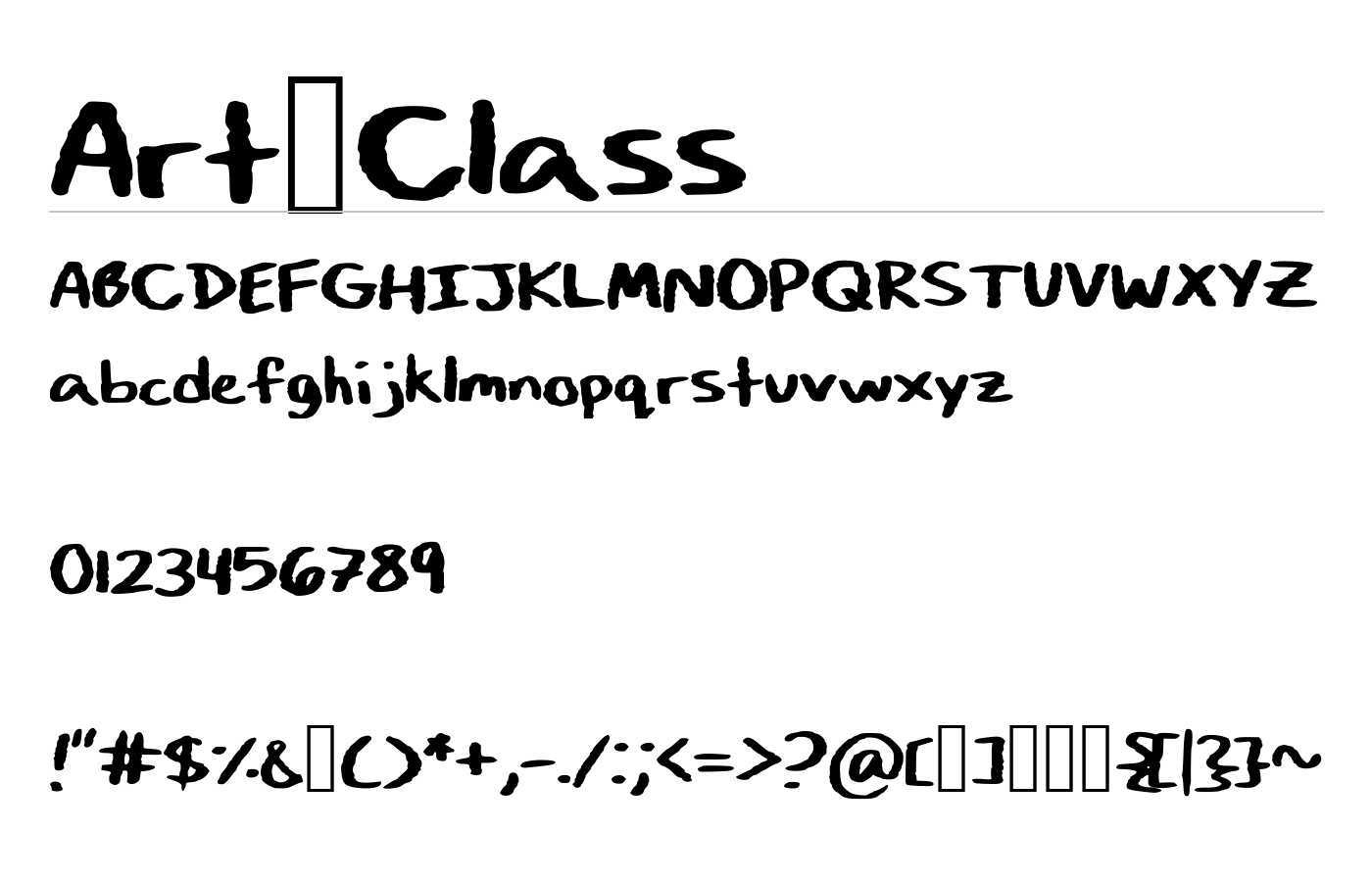
Art_Class Font is a playful and informal handwritten sans serif typeface that features irregular, slightly textured strokes giving it a casual, artistic feel. Its moderate x-height and balanced letterforms make it ideal for creative projects, branding, and educational materials that seek a friendly, approachable, and dynamic vibe. This font works especially well in headlines, posters, or any design aiming for a personal, hand-crafted touch.
Art_Class Font